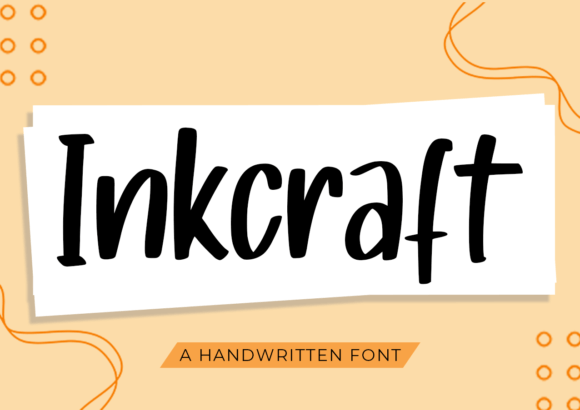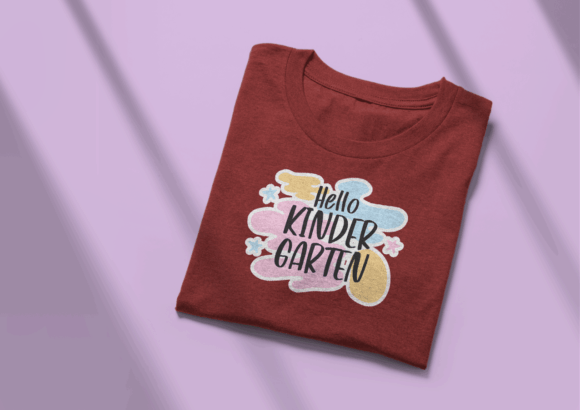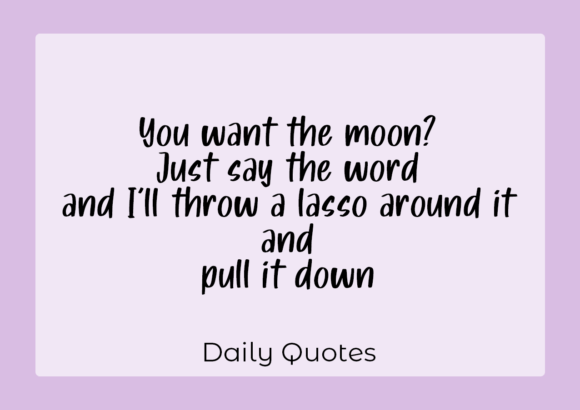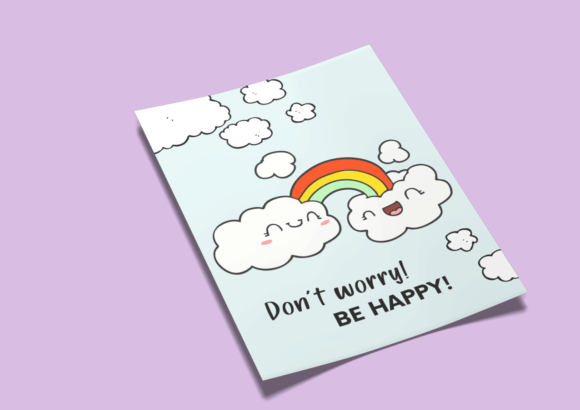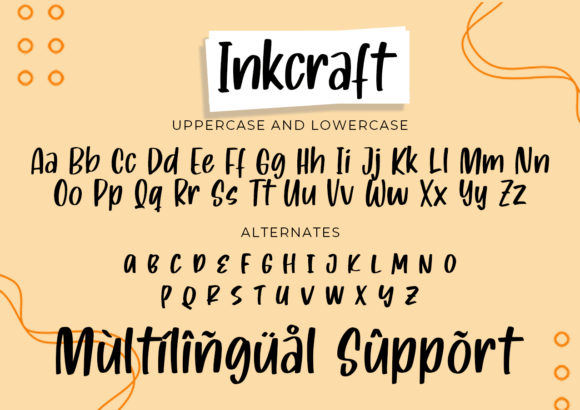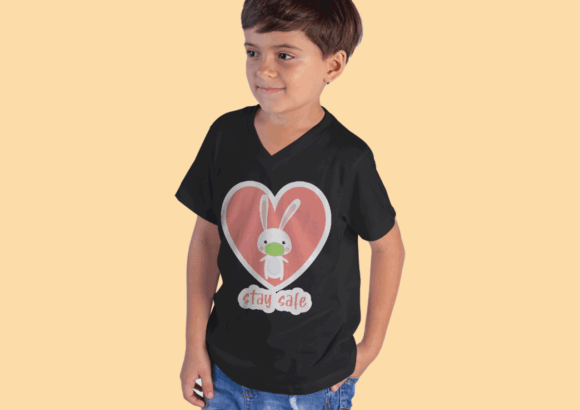
Inkcraft Font
About Inkcraft Font
Inkcraft is a delightful and whimsical handwritten font that effortlessly combines fun with charm. With both upper and lowercase characters, Inkcraft offers a versatile option to add a unique twist to your designs. Whether used on its own or mixed with other fonts, Inkcraft brings a playful and distinctive flair to your creative projects.
The font’s whimsical style makes it suitable for various applications, from playful social media posts to creative headers for your designs. The combination of upper and lowercase characters adds to its versatility, allowing you to experiment with different letterforms to achieve the desired look.
One standout feature of Inkcraft is its PUA encoding, providing easy access to a variety of cute glyphs and swashes. This feature enhances your creative freedom, allowing you to customize your designs effortlessly. Whether you’re working on a logo, branding materials, or any project that could benefit from a touch of whimsy, Inkcraft is ready to bring its unique charm.
Imagine using Inkcraft to create eye-catching designs where each character contributes to the overall fun and lighthearted atmosphere. Picture it paired with other fonts to achieve a truly unique and personalized design. The playful elements of Inkcraft turn it into more than just a font; it becomes a creative tool that adds joy and character to your projects.
Embrace the versatility of Inkcraft, and let it be the source of creativity in your designs. Experiment with the cute glyphs and swashes, combining them to bring your unique vision to life. With PUA encoding, accessing the full potential of Inkcraft is easy, making your design process both enjoyable and dynamic.